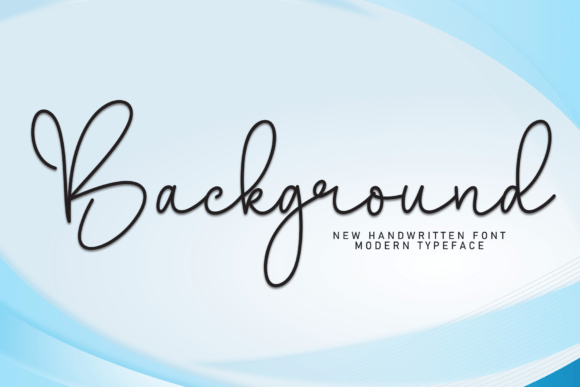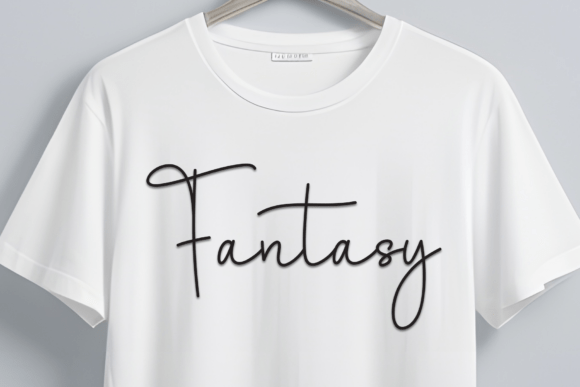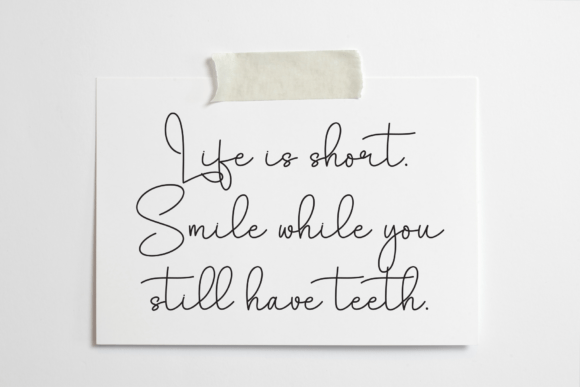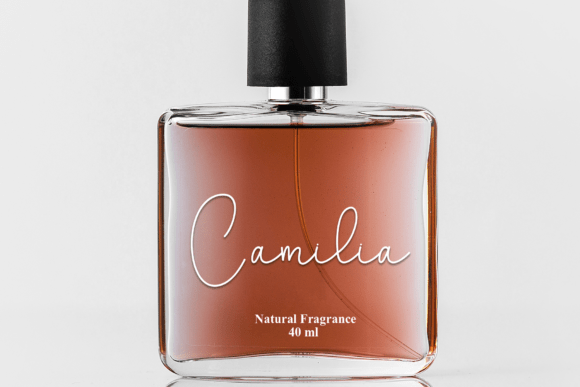
About the Background Font
Unleash your creativity with Background Font, a versatile font perfect for a wide range of applications. A charming script handwritten font that brings a personal, elegant touch to your designs. With smooth curves, natural flow, and a slightly casual style, it feels like it was written with care, making it ideal for wedding invitations, personal branding, greeting cards, and lifestyle blog graphics. Its versatility shines in both romantic and modern aesthetics.
Background Font Usage Examples
Background Font Example